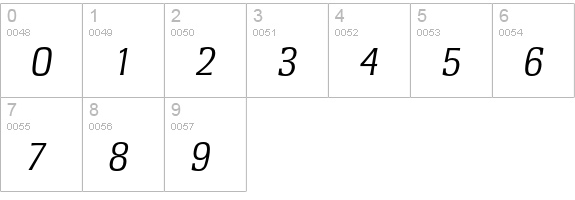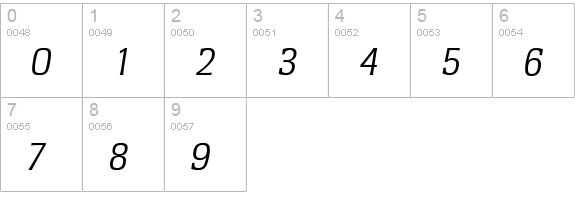
Rochester-LightIta Font Details
The Rochester-LightIta font exudes elegance and sophistication with its delicate strokes and graceful curves. Perfect for adding a touch of refinement to any project, this font embodies a sense of timeless beauty. What sets Rochester-LightIta apart is not just its aesthetic appeal, but also the fact that it is available for free download at FontsMarket.com. Whether you're designing invitations, greeting cards, or branding materials, this versatile font will elevate your designs to new heights. Embrace the beauty and versatility of Rochester-LightIta, and unleash your creativity with this stunning typeface that is just a click away for you to download for free.